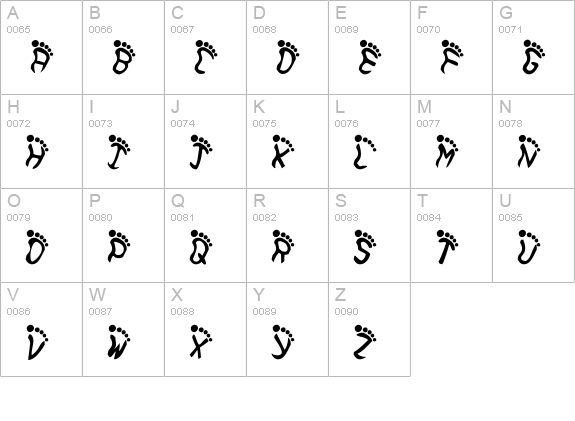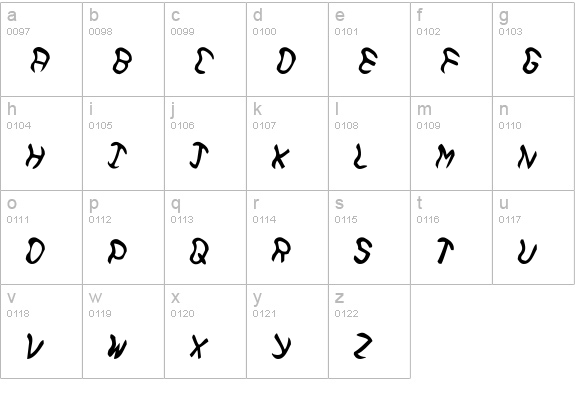
Feetish Font Details
Feetish font is a whimsical and playful typeface that exudes charm and personality. With its quirky letterforms and unique style, Feetish is perfect for adding a touch of fun to your design projects. Whether you're creating invitations, posters, or social media graphics, Feetish font is sure to make a statement. The best part? Feetish font is completely free to download at FontsMarket.com! That's right, you can easily access this delightful font and start using it right away in your creative endeavors. Embrace the creative possibilities that Feetish font offers and let your imagination run wild with this free and fabulous typeface.